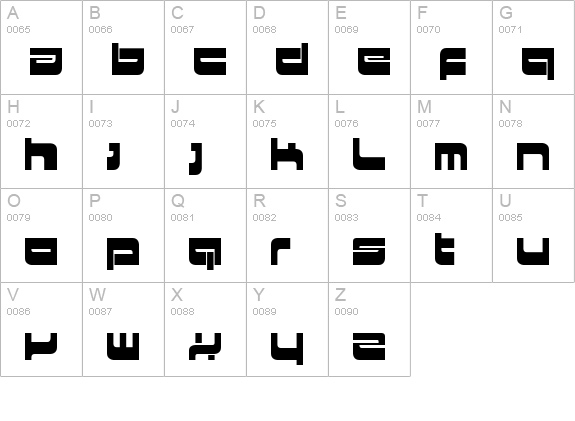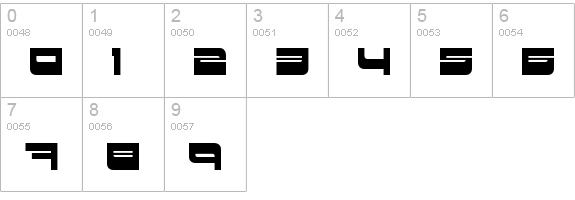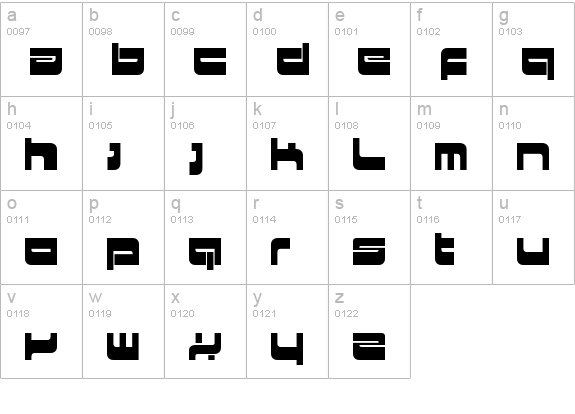
HKI metropol Font Details
HKI Metropol is a modern and sleek sans-serif font that exudes a sense of sophistication and elegance. With its clean lines and balanced proportions, this versatile typeface is perfect for a wide range of design projects, from branding to editorial design. The font features a full set of uppercase and lowercase letters, numbers, punctuation marks, and special characters, making it suitable for both headlines and body text. What sets HKI Metropol apart is that it is available for free download at FontsMarket.com. This means that designers and creatives can easily access this high-quality font without any cost, allowing them to elevate their designs without breaking the bank. Whether you're working on a personal project or a client commission, HKI Metropol is an excellent choice that combines style and accessibility.